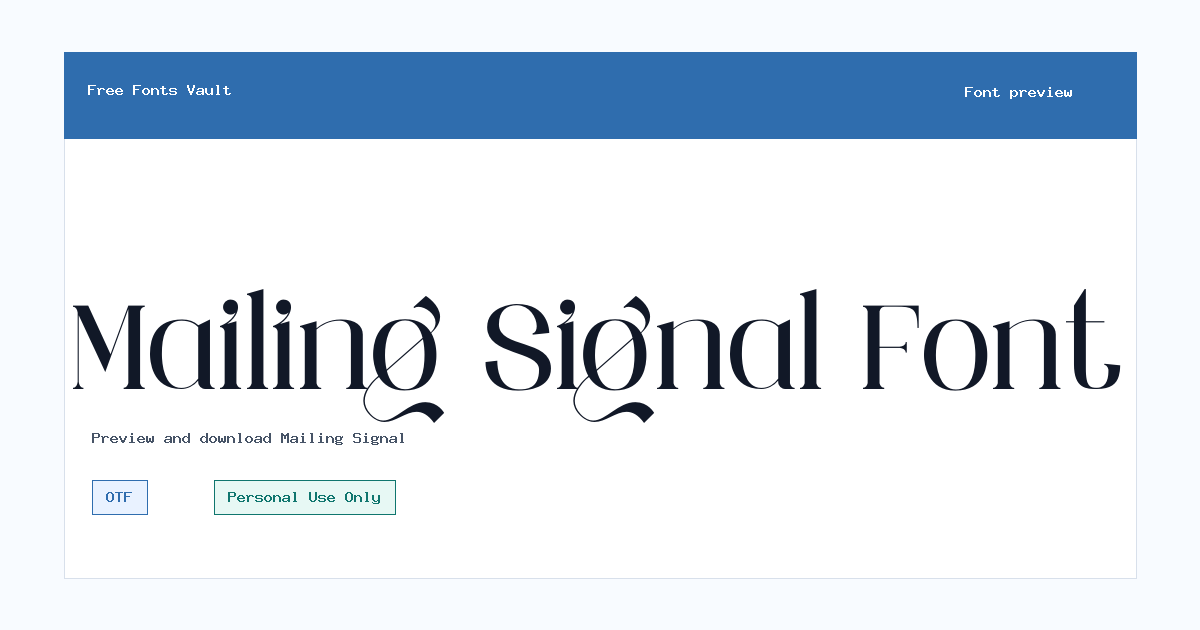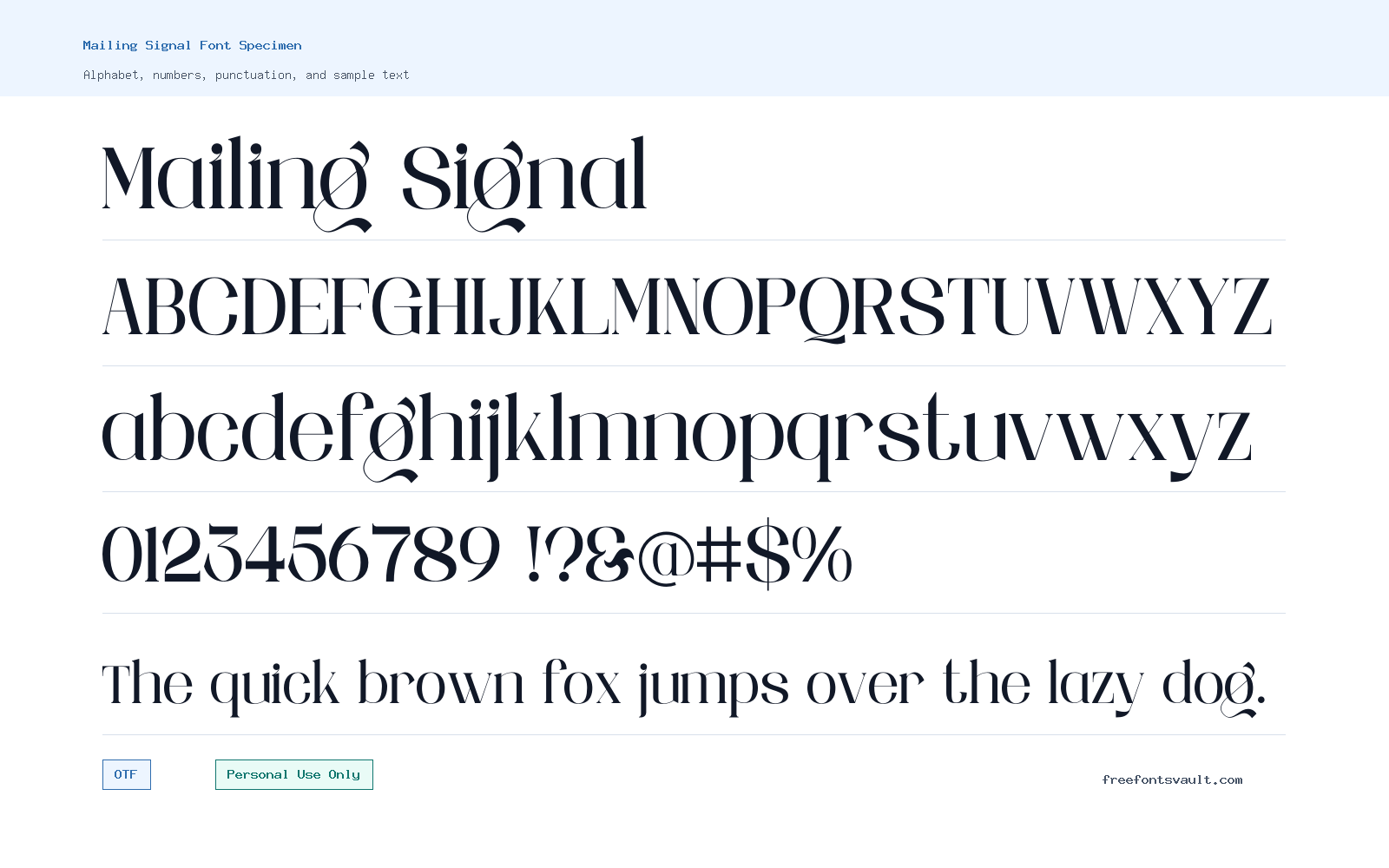
Mailing Signal
- Designer Risma Mulyasari
- Foundry Risma Type
Mailing Signal font.
Mailing Signal is a decorative serif display font from Risma Type, credited to Risma Mulyasari. It has a high-contrast look with thin hairlines, heavier vertical strokes, and ornamental swash details that give short words a formal, expressive feel.
About Mailing Signal
Mailing Signal works best when the text is large enough for its fine details to show. In preview, the Regular style reads upright and polished, while the Italic style adds a stronger forward slant for a more elegant heading. The letterforms are decorative rather than plain, so it is a better choice for names, titles, invitations, packaging mockups, social graphics, boutique branding tests, and short logo-style text than for long paragraphs.
- Decorative high-contrast serif style with fine strokes and ornamental details
- Regular and Italic OTF styles for display use
- Wedding invitations, event titles, greeting cards, and name-based designs
- Logo drafts, packaging concepts, social posts, and elegant short headings
What is Mailing Signal best used for?
It is best for short display text such as invitations, names, elegant headings, logo drafts, packaging mockups, and social media graphics.
Is Mailing Signal good for body text?
It is not ideal for long reading. The thin strokes and decorative details work better at larger sizes in short phrases.
Who designed Mailing Signal?
The font is credited to Risma Mulyasari, with Risma Type listed as the foundry.